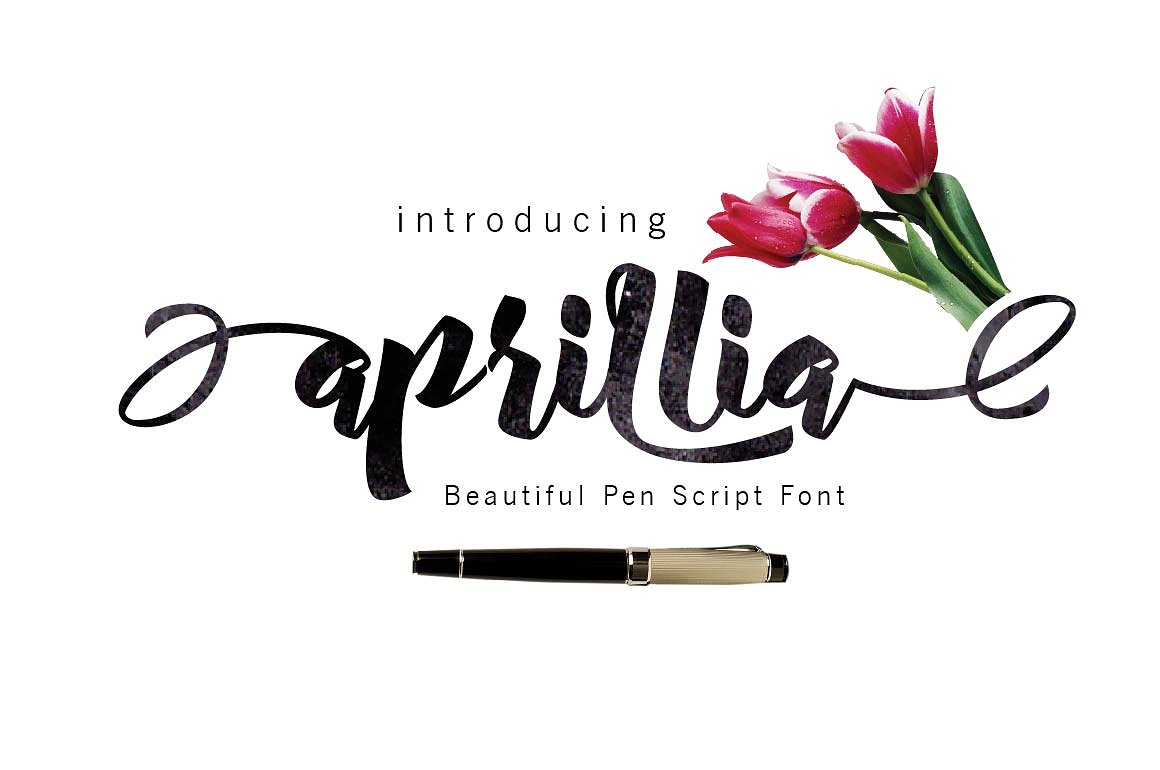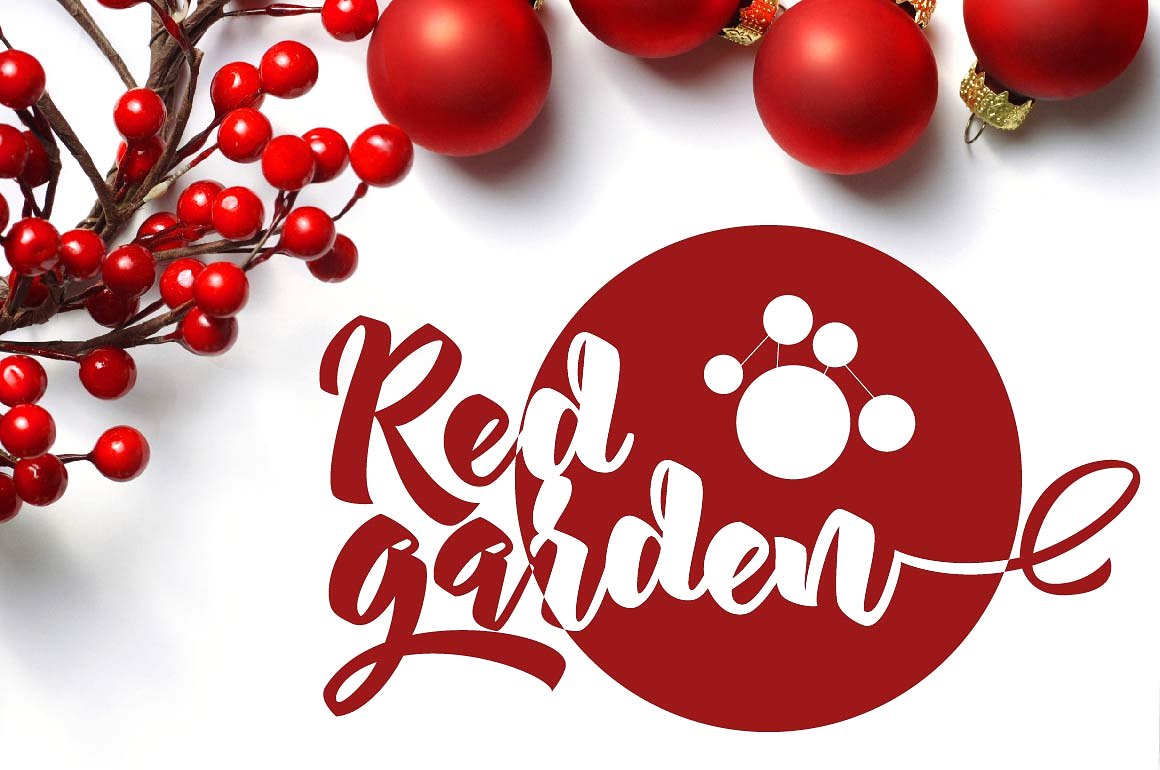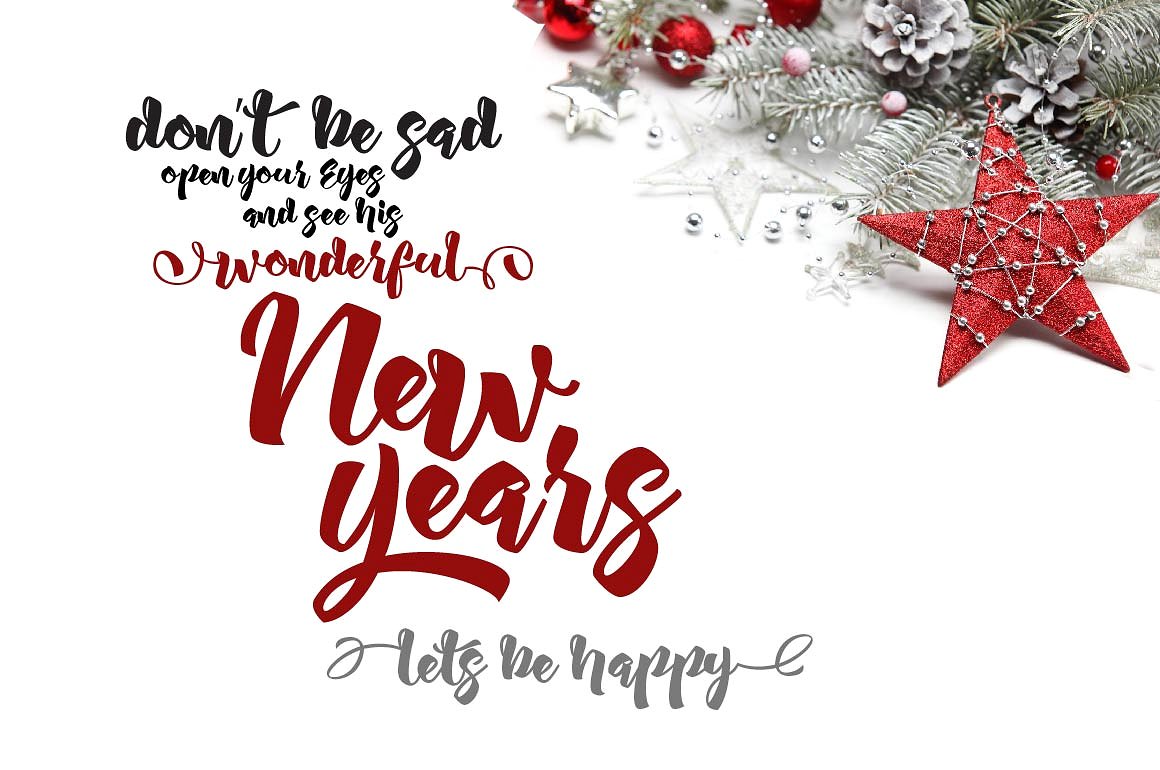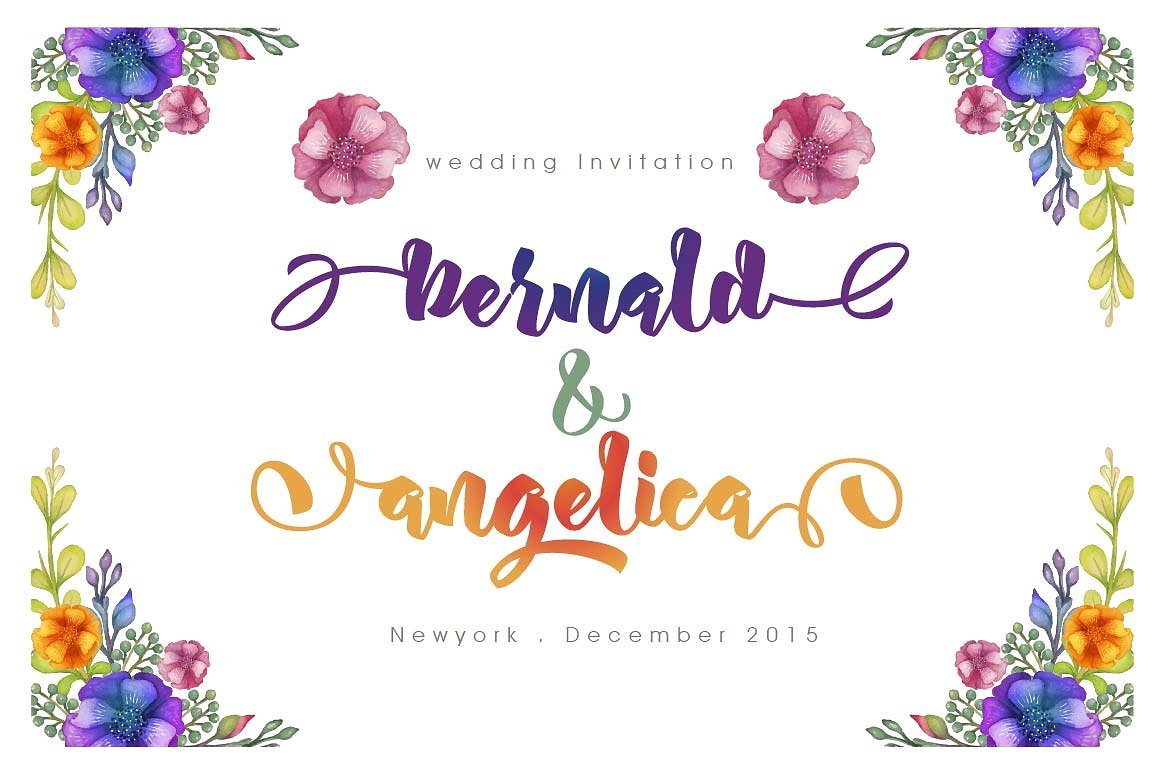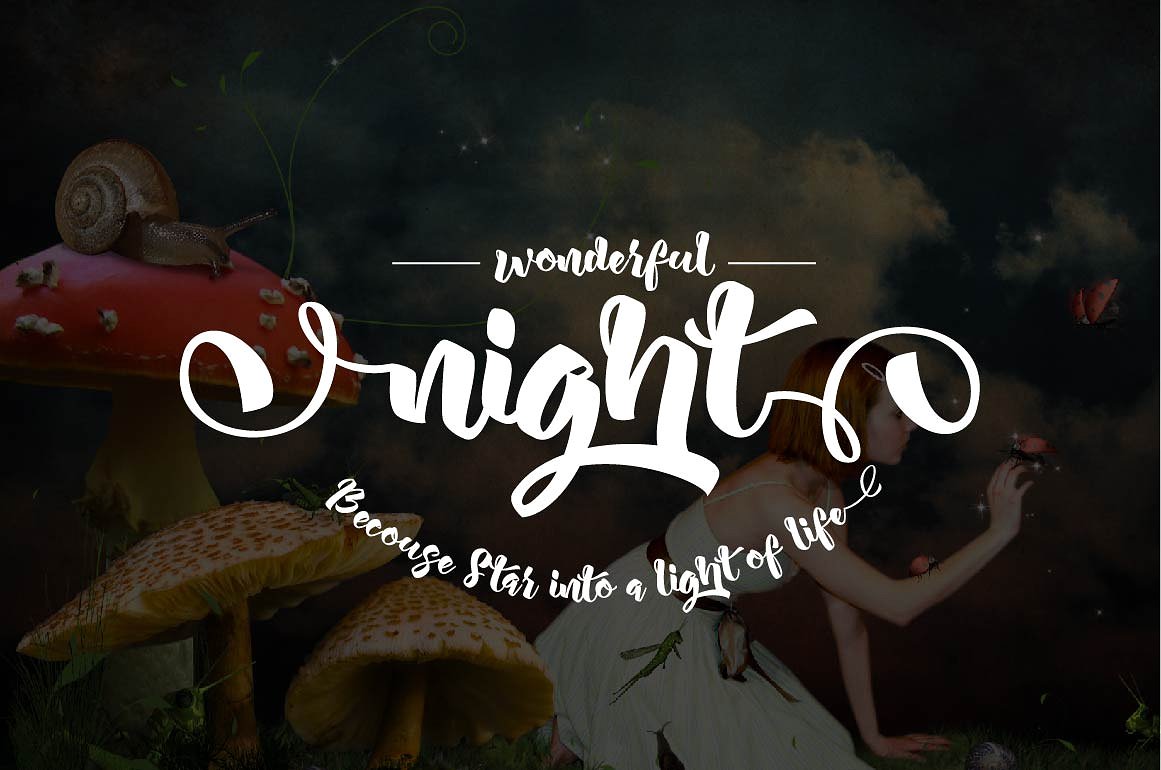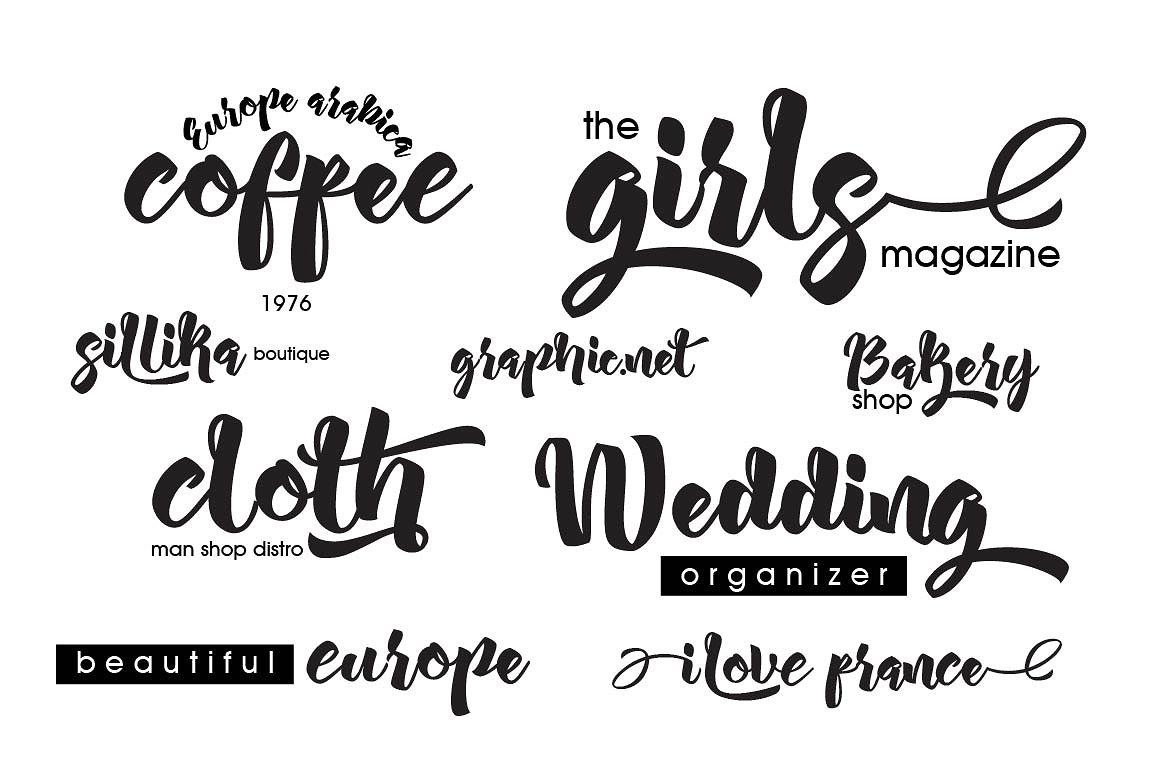
Aprillia Script is a modern calligraphy typeface designed by Rabbittype. This gorgeous script font is perfect for use on wedding invitations, watermarks, logos, cards, T-shirts and loads more. Download the free version beneath the previews: